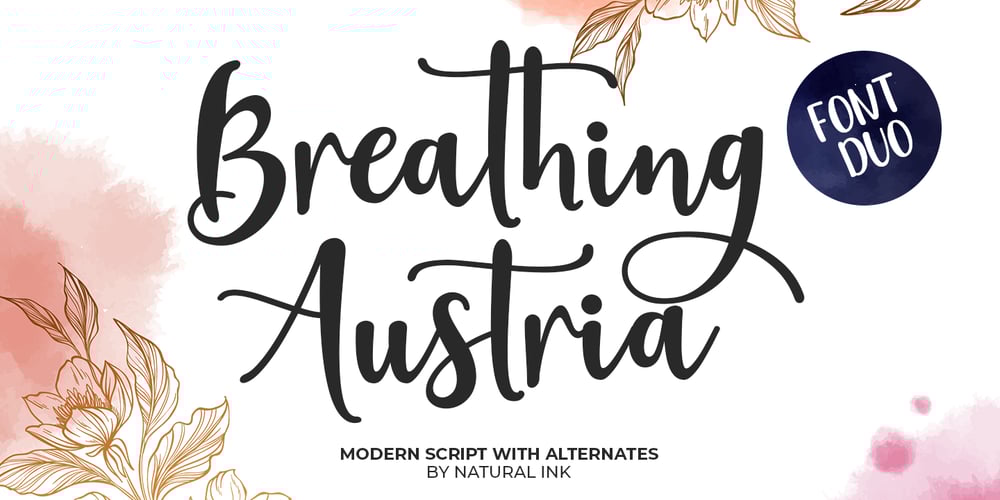
Breathing Austria Font Family was designed by Arif Gunawan and published by Natural Ink. Breathing Austria contains 2 styles and family package options. Breathing Austria- Duo Font is a new modern script font with an irregular base line. Trendy and feminine style. Breathing Austria- Duo Font With Extras looks beautiful in wedding invitations, thank-you cards, quotes, greeting cards, logos, business cards, and more. Perfect for use in ink or watercolors. Including initial letters and terminals, alternatives and support for many languages.To activate the OpenType Stylistic alternative, you need a program that supports OpenType features such as Adobe Illustrator CS, Adobe Indesign & CorelDraw X6-X7, Microsoft Word 2010 or newer versions. There are additional ways to access alternatives / swash, using Character Map (Windows), Nexus Fonts (Windows), Font Books (Mac) or software programs such as PopChar (for Windows and Mac).How to access all alternative characters:https: //www.youtube.com/watch? v = Go9vacoYmBwhttps: //www.youtube.com/watch? v = XzwjMkbB-wQneed help or have questions, let me know. I am happy to help :)Thank you & Congratulations on the Design!